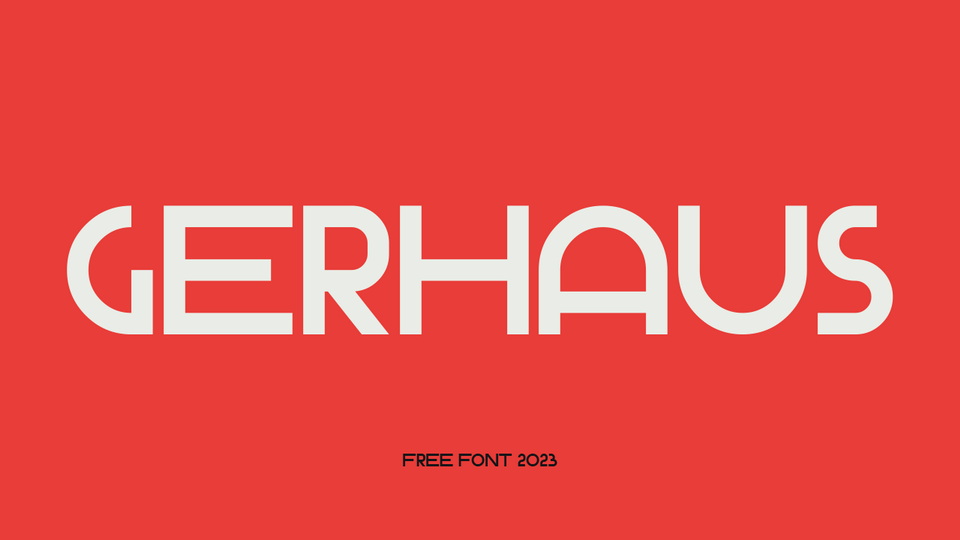
Download Gerhaus font, a modern geometric grotesque with mixed-width letters, contrasting round and square shapes. Gerhaus font is ideal for posters, headlines and display lettering that get attention.